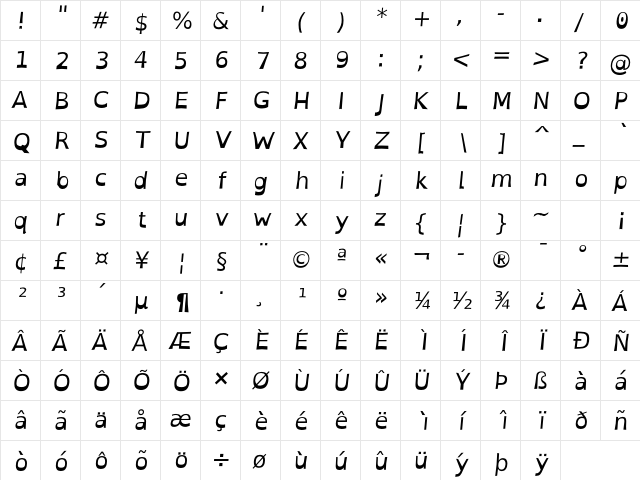
OpenDyslexic Italic
| Designer | Abelardo Gonzalez |
Design Context for OpenDyslexic Typeface
OpenDyslexic takes a measured approach to typography — its balanced proportions and neutral character make it a reliable workhorse for both digital and print work. The slanted form adds forward momentum and visual energy.